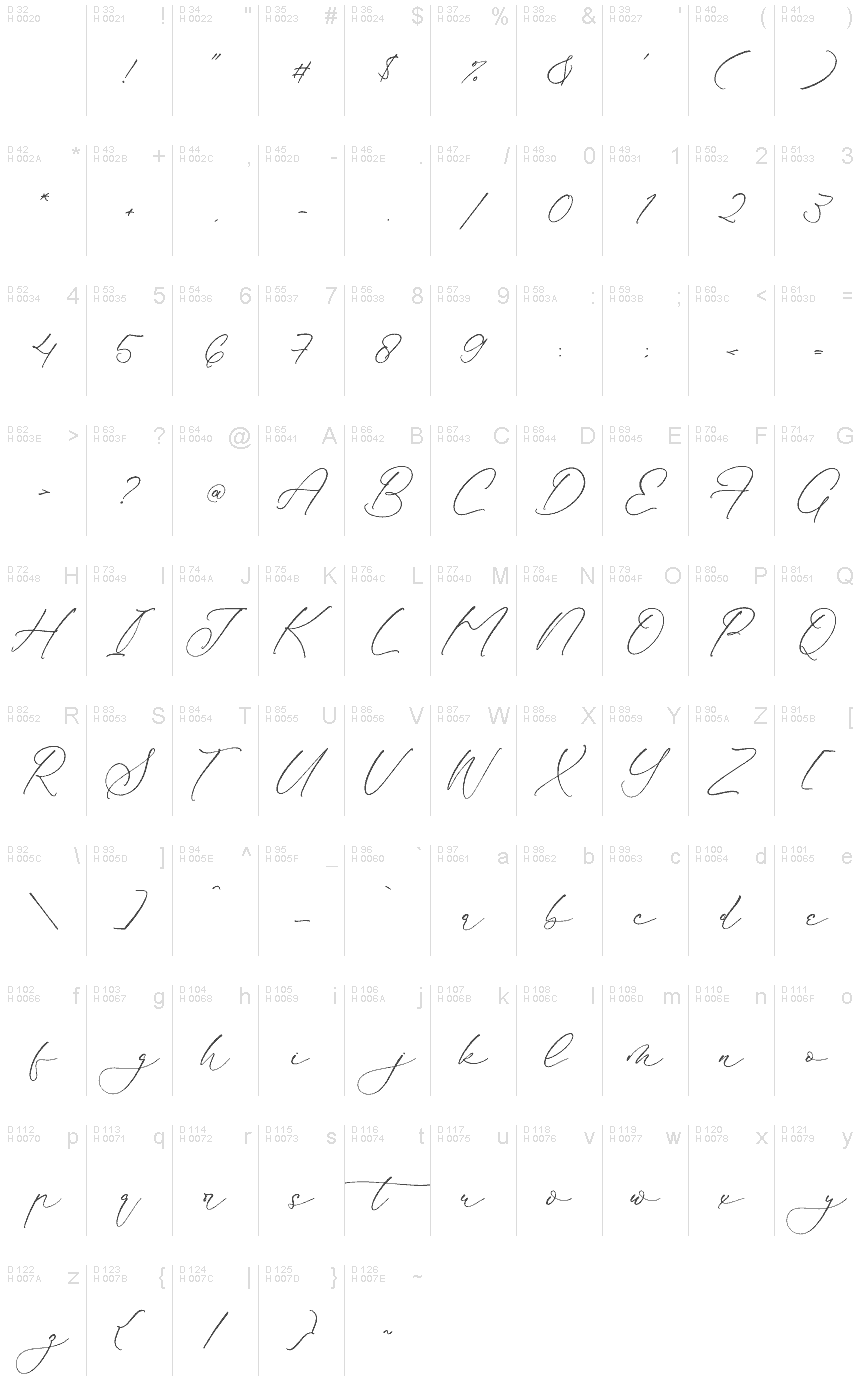
Mindflora Benatio
Mindflora Benatio font by Storytype Studio is an elegant light handwritten font with a sophisticated and expressive signature-like style. It creates a graceful flow for users to give their artwork a personal touch with the professional typographic set. With its beauty and neatness, Mindflora Benatio guarantees superb visual results and the ultimate viewer’s attention.